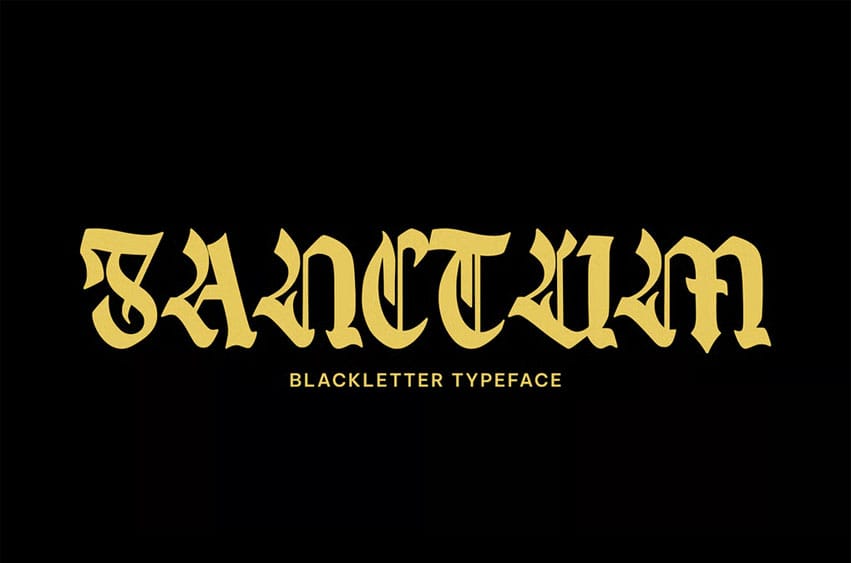
Sanctum Font is a powerful blackletter typeface designed to evoke strength, mystery, and a timeless medieval essence. Its bold character presence delivers dramatic impact, making it a perfect choice for branding with a commanding tone, gothic-inspired titles, fantasy themes, posters, album covers, game visuals, and editorial layouts that need a captivating statement.
Whether you’re creating a dark fantasy universe, crafting bold logos, or designing dramatic headline pieces, Sanctum gives your work a sense of ancient authority and refined artistic depth. This typeface blends tradition with modern creative energy, letting your concepts rise with power, confidence, and emotion.
- Uppercase Letters
- Ligature & Alternate Character
- Unique Hand-Drawn Style